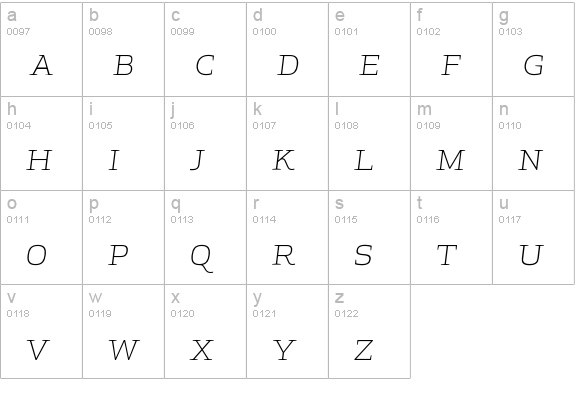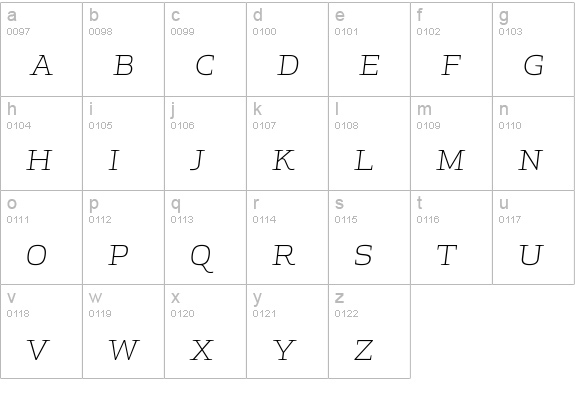
ApexSerif-LightItalicCaps is a sophisticated and elegant font that exudes a sense of class and refinement. Its delicate and flowing italic design adds a touch of charm to any text or design project. The slender serifs and unique capital letters make this font perfect for adding a touch of sophistication to your work. This font is perfect for use in invitations, branding, logos, and other creative projects where a touch of elegance is desired. The light weight of the font gives it a modern and airy feel, while the italic design adds a sense of movement and grace. Best of all, ApexSerif-LightItalicCaps is available for free download at FontsMarket.com. So, you can easily add this beautiful font to your collection without any cost. Don't miss out on the opportunity to enhance your designs with this stunning typeface!